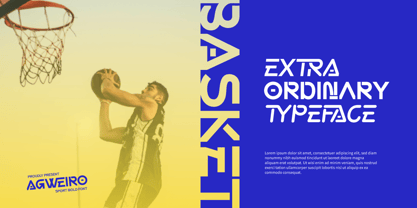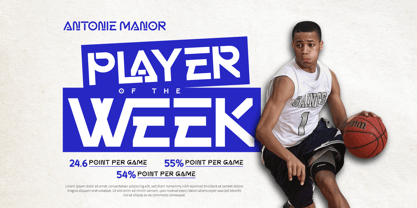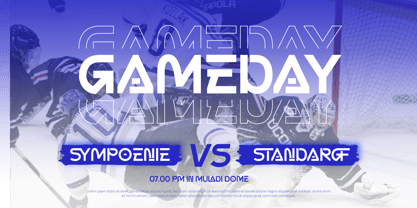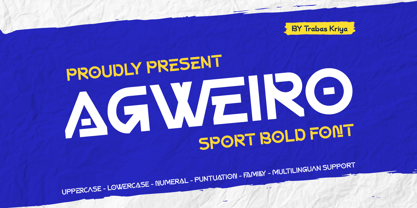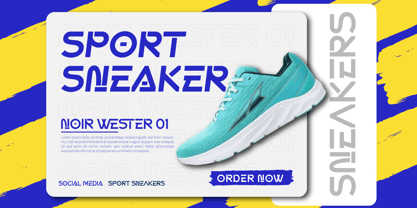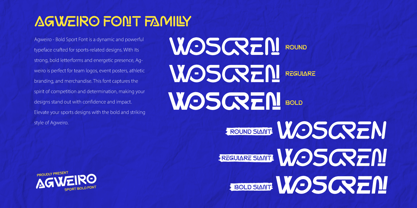
Agweiro
La familia tipográfica Agweiro fue diseñada por Murozakul Akhsan y publicada por Trabas Kriya. Agweiro contiene 6 estilos y opciones de paquete familiar. Más información sobre esta familia
Agweiro - Bold Sport Font is a dynamic and strong typeface made for sports-related designs. With bold, angular letterforms, this font is perfect for team logos and sports posters. The font includes style alternatives and multilingual support. This font captures the spirit of competition and determination, making your designs stand out with confidence and impact.
Elevate your sports designs with Agweiro's bold and bold style.